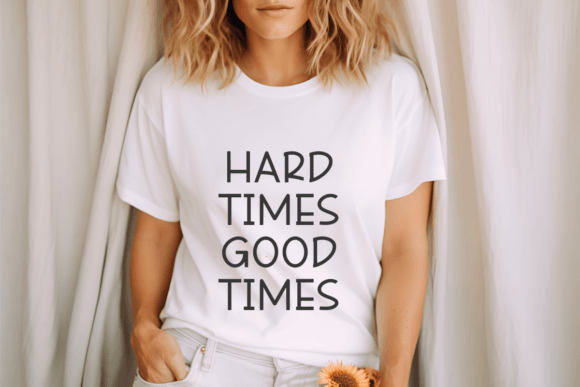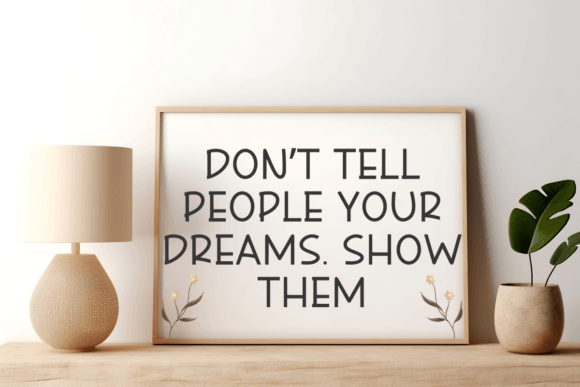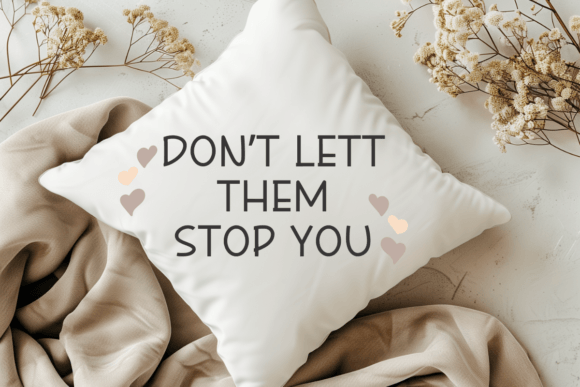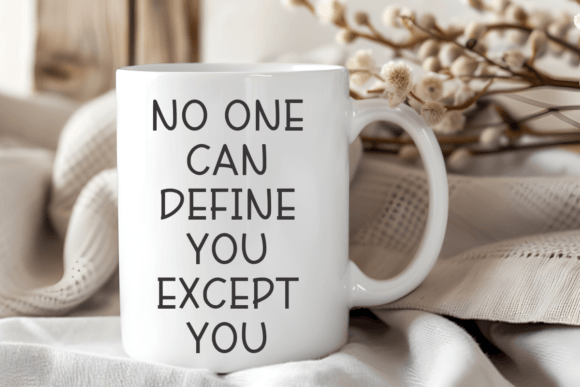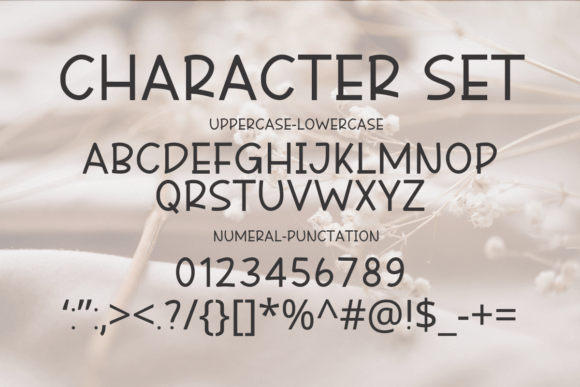
Discover the Whimsical Charm of Bubble Rainbow Font
Have you ever been in the midst of working on a design project, only to find yourself stuck on the perfect font? I recall a particularly frustrating experience while crafting a custom sticker for a client’s wedding favors. The design was almost complete, but the font just wasn’t right. That’s when I stumbled upon Bubble Rainbow, a charmingly original handwritten font that instantly elevated my design. In this article, we’ll dive into the delightful world of Bubble Rainbow and explore its features, uses, and creative possibilities.
A Personal Review: What I Love About Bubble Rainbow
Bubble Rainbow has quickly become a favorite in my design toolkit, and for good reason. Here are some aspects that I absolutely adore:
• ✨ Feminine allure: Bubble Rainbow exudes a soft, feminine charm that’s perfect for projects that require a touch of whimsy.
• ✅ Playful strokes: The font’s natural, handwritten strokes give it a lively feel that’s sure to capture attention.
• 🌈 Multipurpose design: Whether you’re working on journal entries, scrapbook projects, or stickers, Bubble Rainbow adapts seamlessly to various applications.
• 💻 Easy to use: This font is a breeze to work with, even for those who are new to design or typography.
While Bubble Rainbow is an exceptional font, there are a few minor quirks to be aware of:
• 🤔 Limited formal applications: Due to its playful nature, Bubble Rainbow might not be the best fit for formal or professional projects that require a more serious tone.
• ⚠️ Legibility at small sizes: As with many handwritten fonts, Bubble Rainbow may lose legibility when scaled down to very small sizes.
The Story Behind Bubble Rainbow
Bubble Rainbow was crafted with love and care by a talented type designer who sought to create a font that embodied the carefree spirit of childhood. Inspired by the colors of the rainbow and the playful curves of handwritten letters, Bubble Rainbow was born. Its creator aimed to design a font that would bring joy and whimsy to various design projects, from personal journals to commercial branding.
Is Bubble Rainbow suitable for body text? While Bubble Rainbow is a beautiful font, its playful nature makes it more suitable for headings, titles, or short paragraphs. For longer body text, a more traditional font might be more readable.
In conclusion, Bubble Rainbow is a delightful font that can add a touch of whimsy and charm to various design projects. With its playful strokes, feminine allure, and multipurpose design, it’s an excellent addition to any designer’s toolkit. Whether you’re a seasoned professional or a creative hobbyist, Bubble Rainbow is sure to inspire your next design adventure.